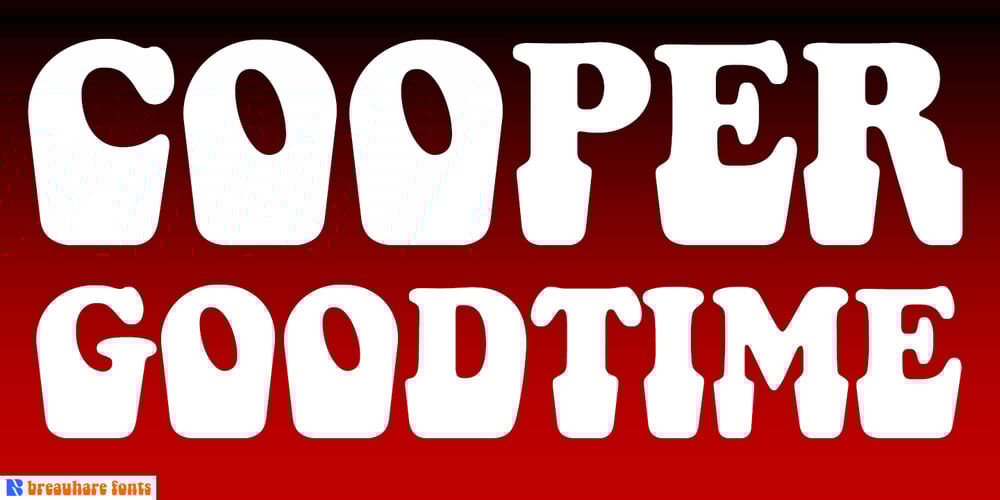
Cooper Goodtime Font Family was designed by Harry Warren and published by Breauhare. Cooper Goodtime contains 1 styles and family package options. Cooper Goodtime is a font based on the lettering used on the CBS-TV variety series The Glen Campbell Goodtime Hour (1969-1972). The name pays tribute to its two origins, the other being Cooper Black. It was never an actual complete font set on the TV show, only a limited number of handmade letters, all upper case. It has lain dormant since the show went off the air in 1972. With this incarnation, a set of lower case letters has been created to complement the upper case letters. These lower case letters never existed before now. Cooper Goodtime is a funky, nostalgic, cool way to create a display, and it works surprisingly well in text sizes, too.